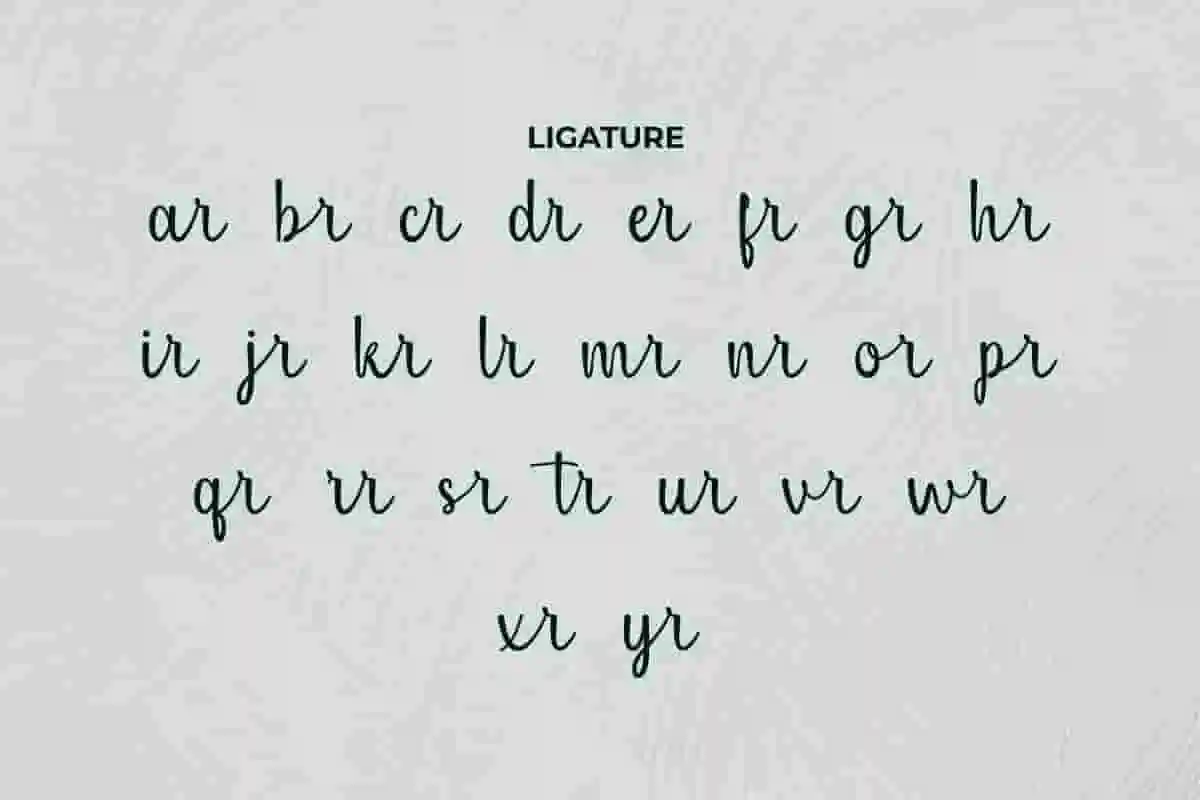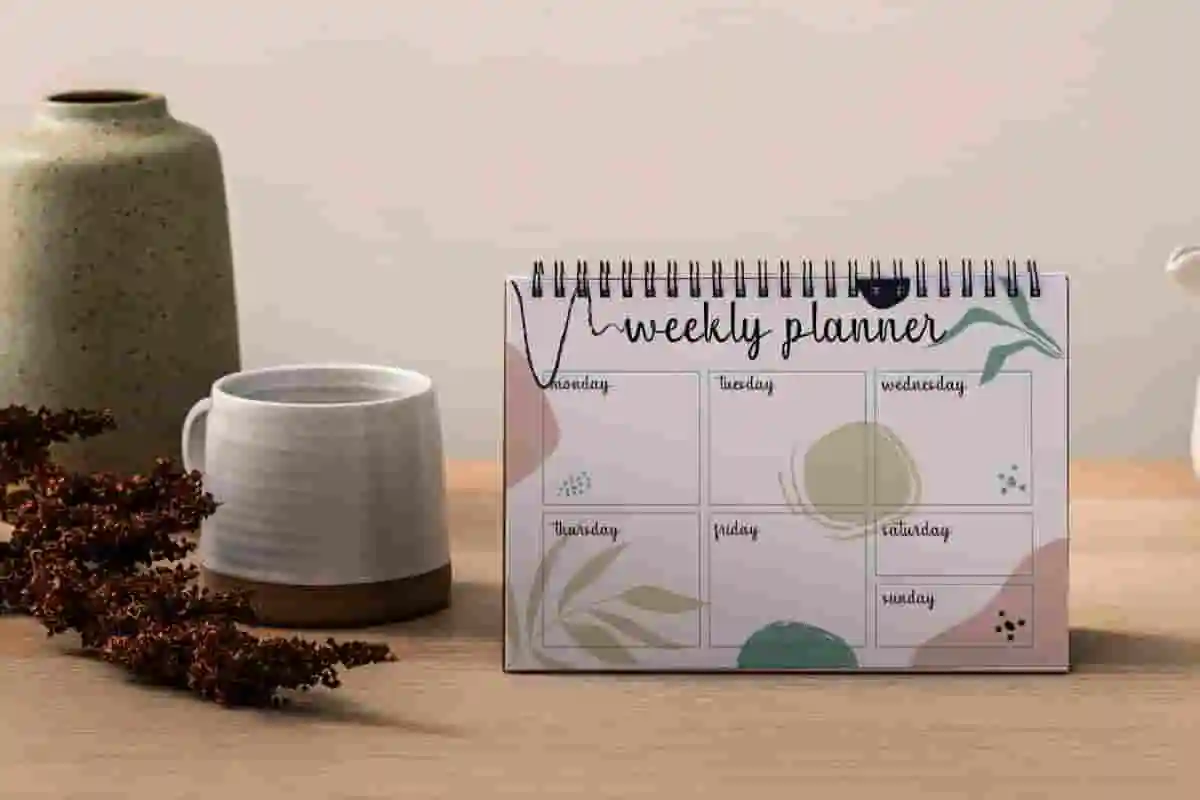
Mix Match Calligraphy Font
Mix Match Font is a calligraphy font with uniquely elegant shape, created by NoahType. This font has an impressive level of neatness with abstract lines that add beauty to many projects such as brand logo, calendar, invitation, label, magazine, packaging product, quote, signage, stationery, and more!
Mix Match Font includes full set of Uppercase and Lowercase Basic Characters, Numerals, and Punctuation. It also contain ligature and alternate characters that will be suitable for many industries such as café, cosmetic, fashion, florist, salon and spa, wedding or event organizer, etc.